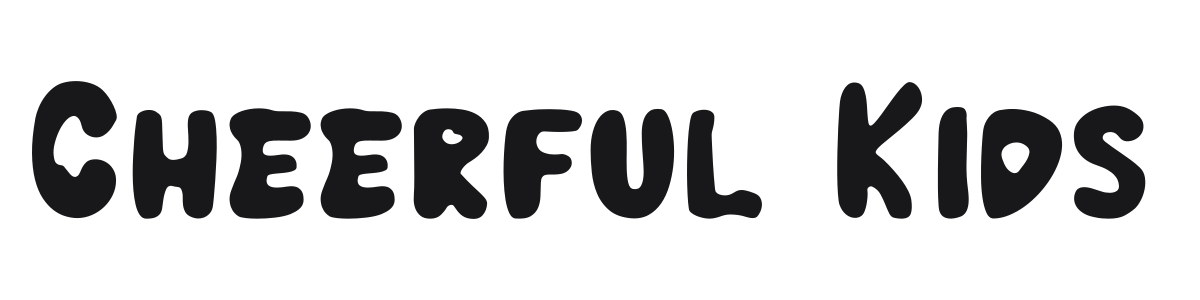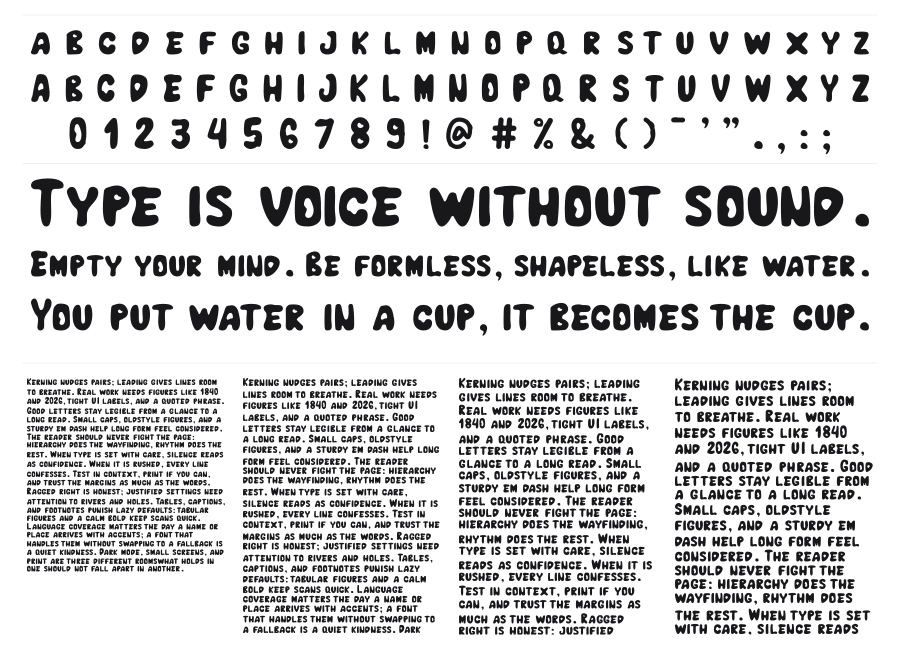
Cheerful Kids
Cheerful Kids is a bold, bubbly display font with thick rounded strokes and a playful hand-drawn cartoon feel. Each character has a soft, inflated quality with slightly wobbly outlines that give it genuine charm rather than generic roundness. It works at large sizes for children's book covers, toy packaging, event posters, and anywhere a sense of joy is the point.